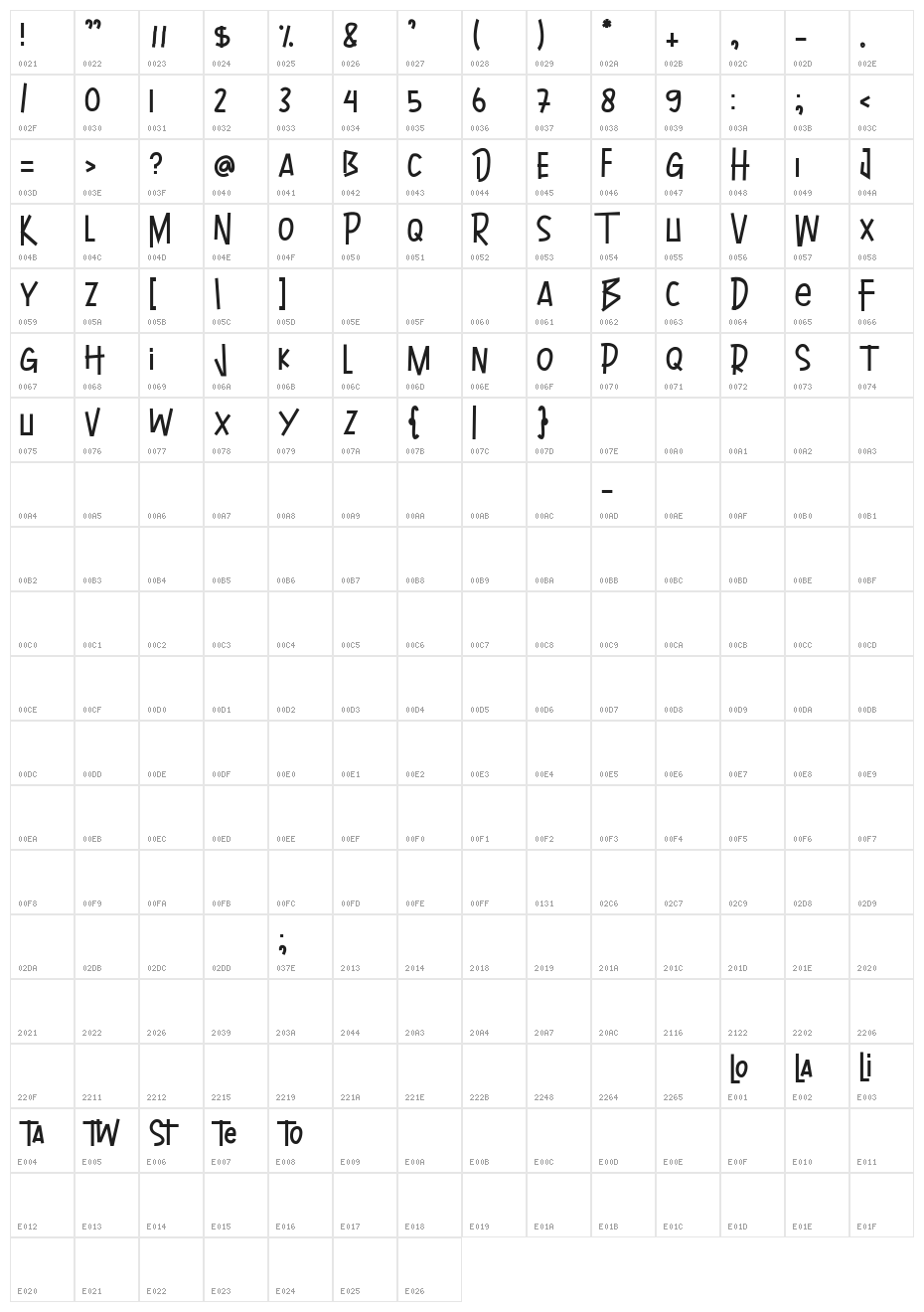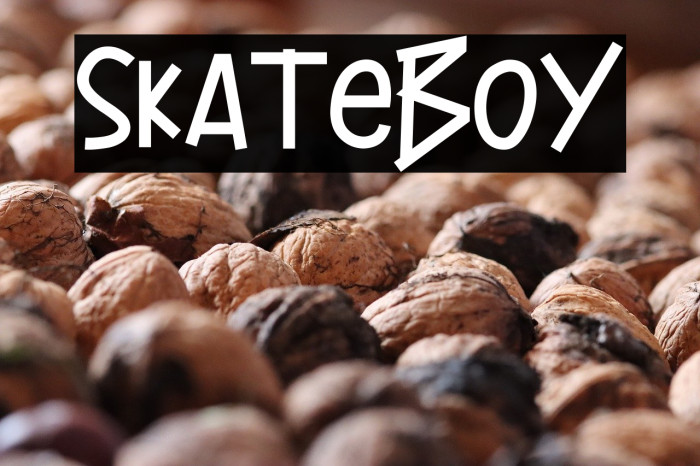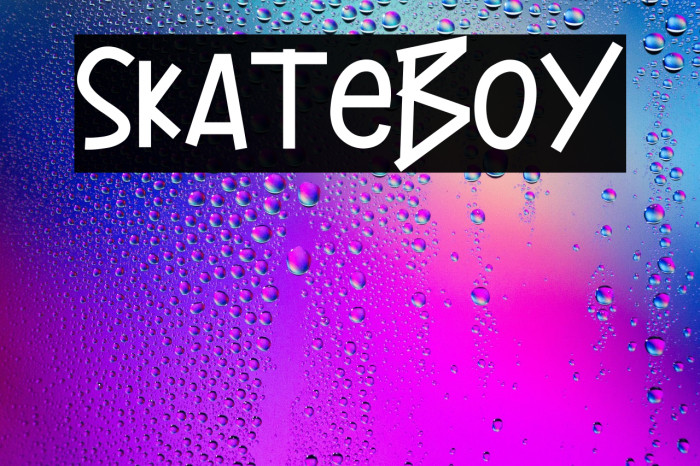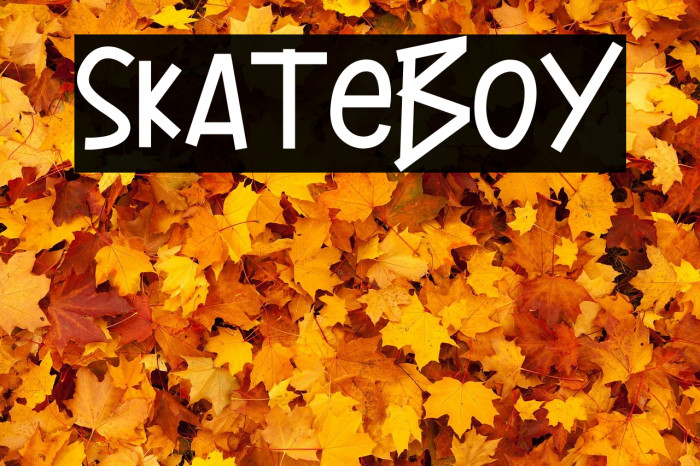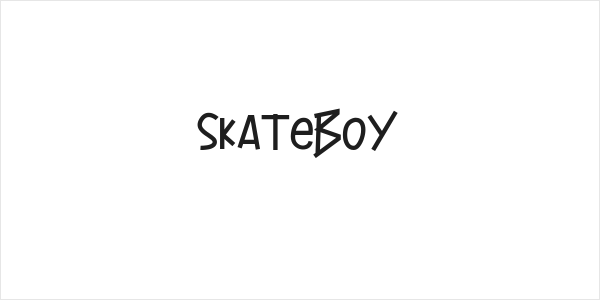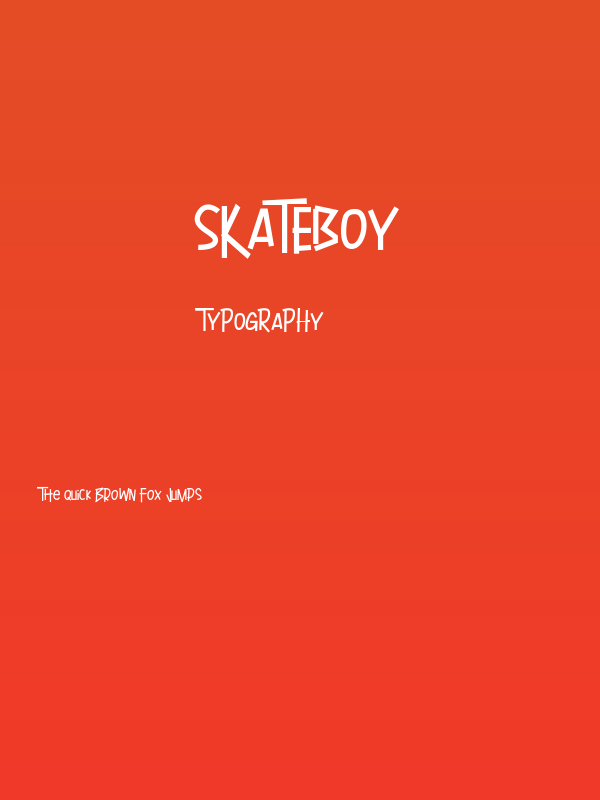
Skateboy Font
Skateboy Description
This font exudes a playful and energetic vibe, characterized by its bold and slightly irregular letterforms. The uppercase and lowercase letters are crafted with a dynamic flair, featuring exaggerated curves and angles that give it a hand-drawn appearance. The numbers and special characters maintain this lively style, ensuring consistency across all glyphs. The font's unique personality makes it stand out, perfect for projects that require a touch of creativity and fun. Its informal style is reminiscent of street art or graffiti, making it suitable for youthful and vibrant designs.
| Overall Style | Modern, Urban |
| Proposed Projects | Ideal for skateboarding brands, youth-oriented advertisements, graffiti art projects, and creative event posters. |